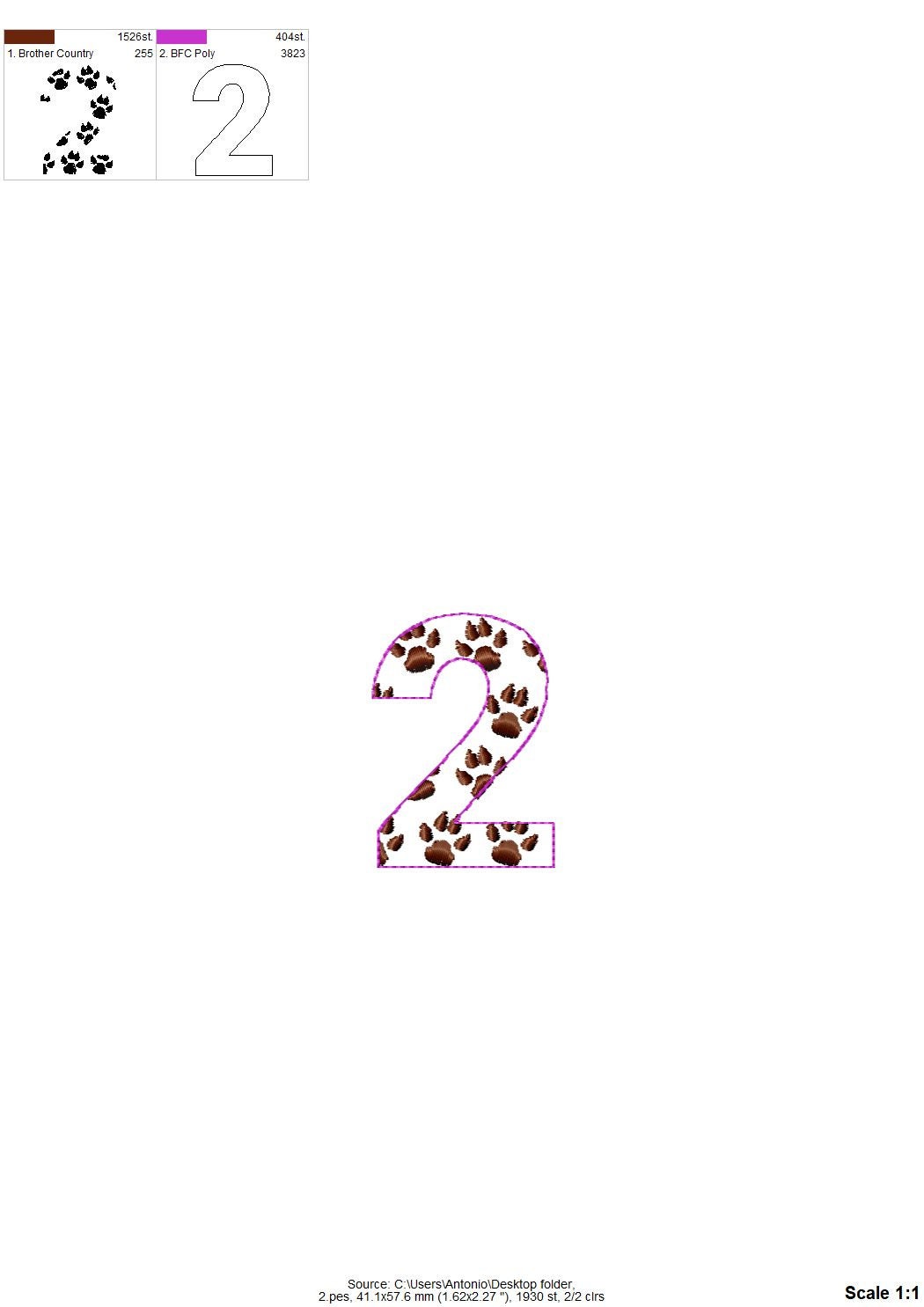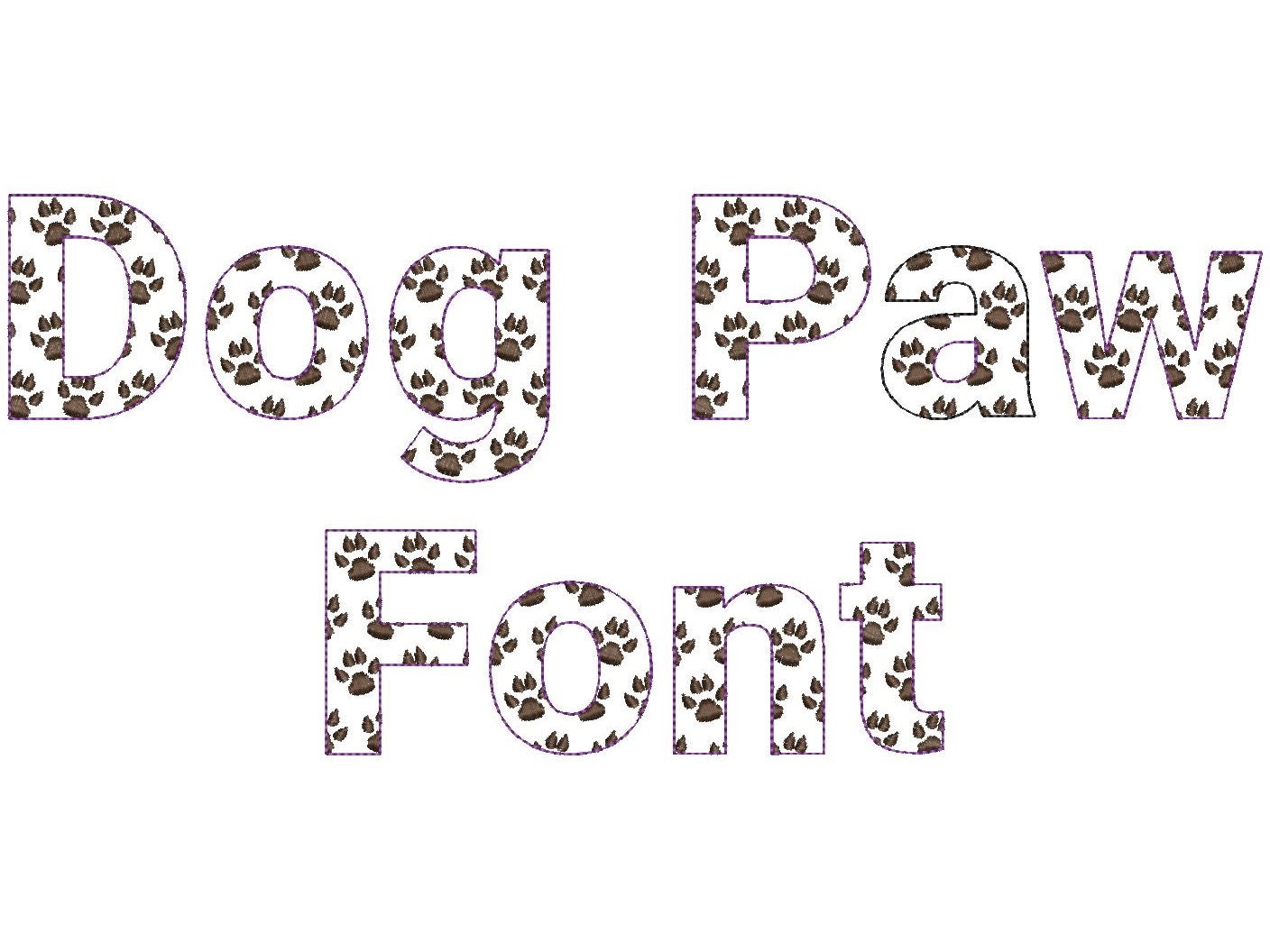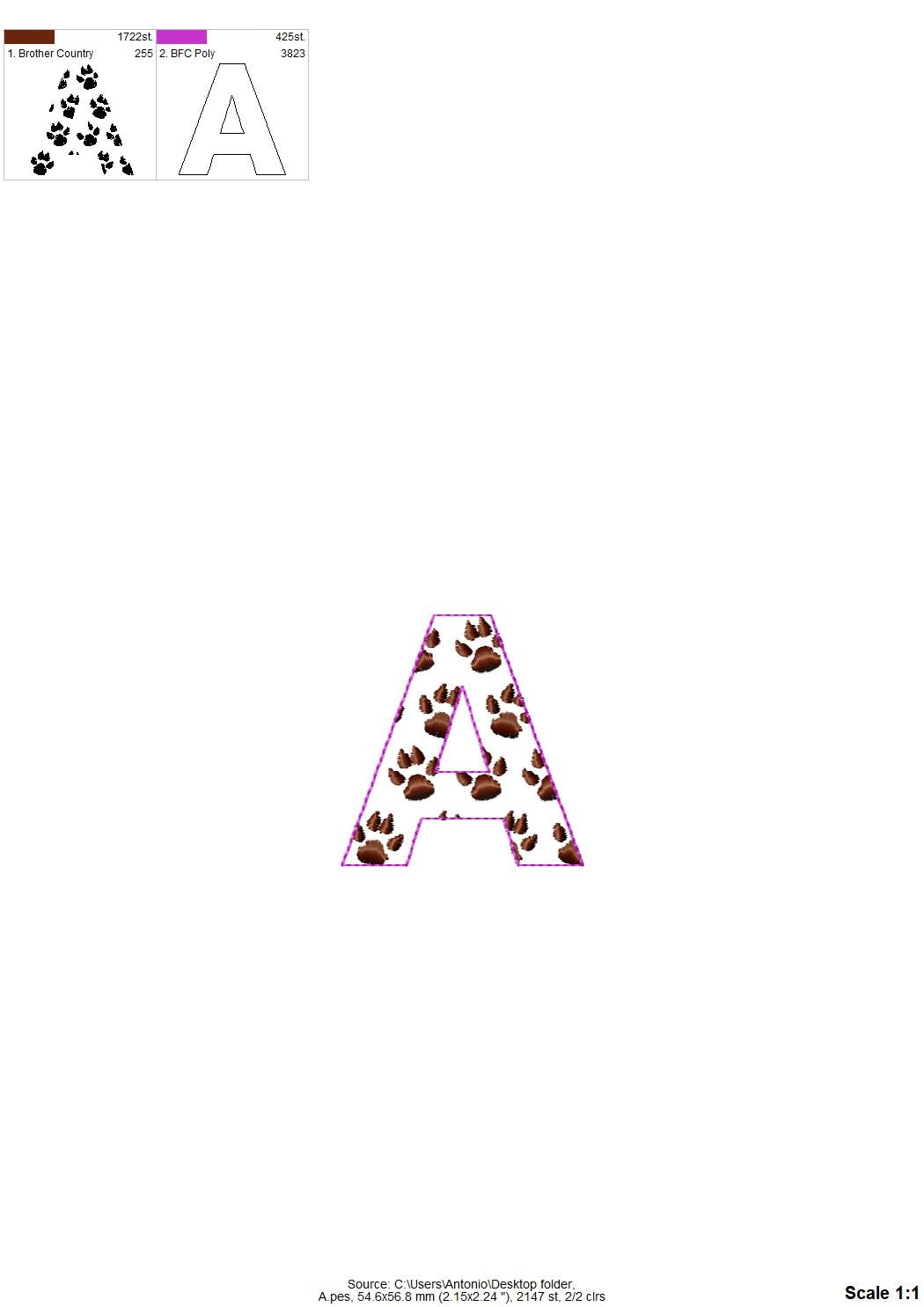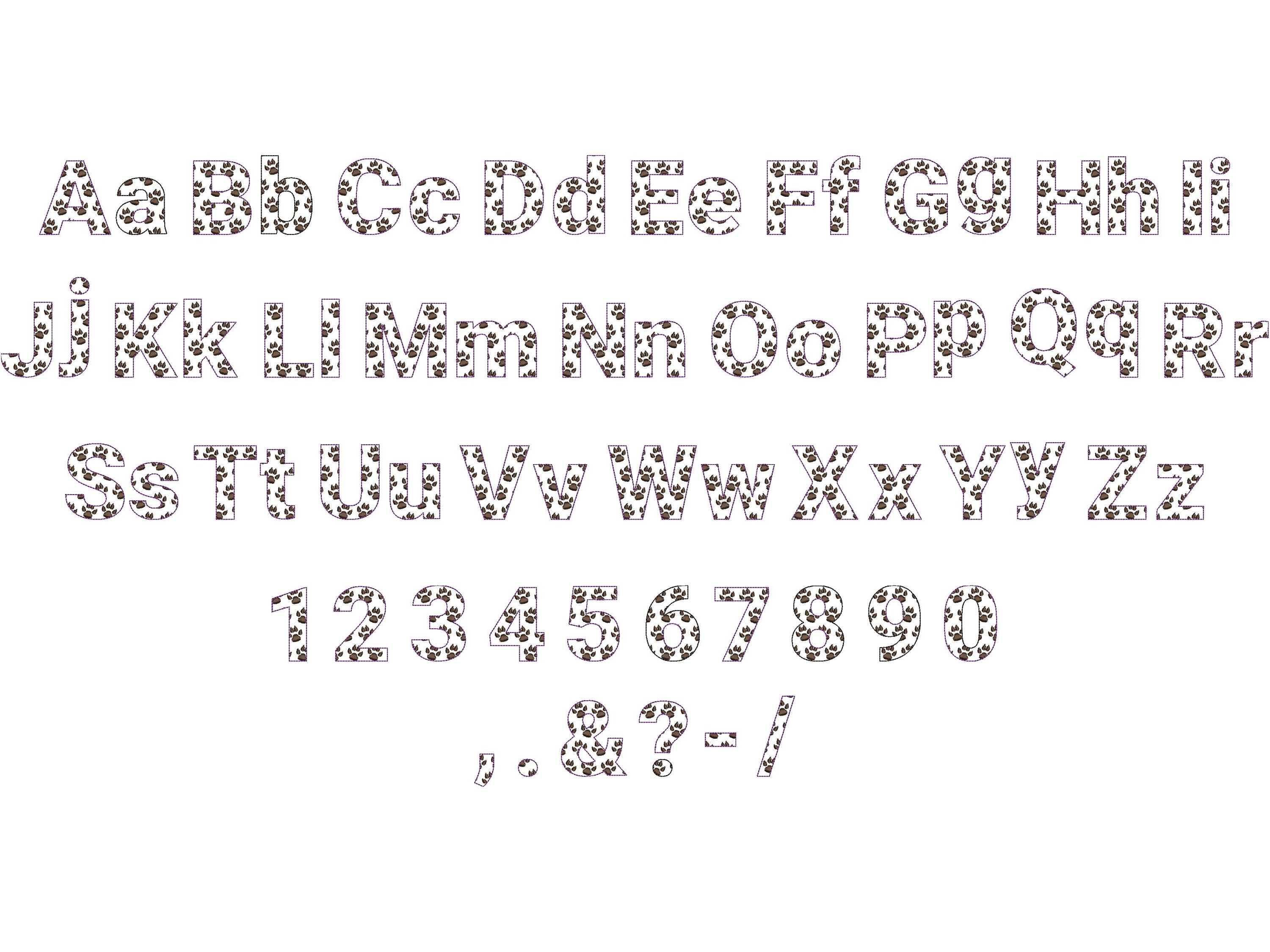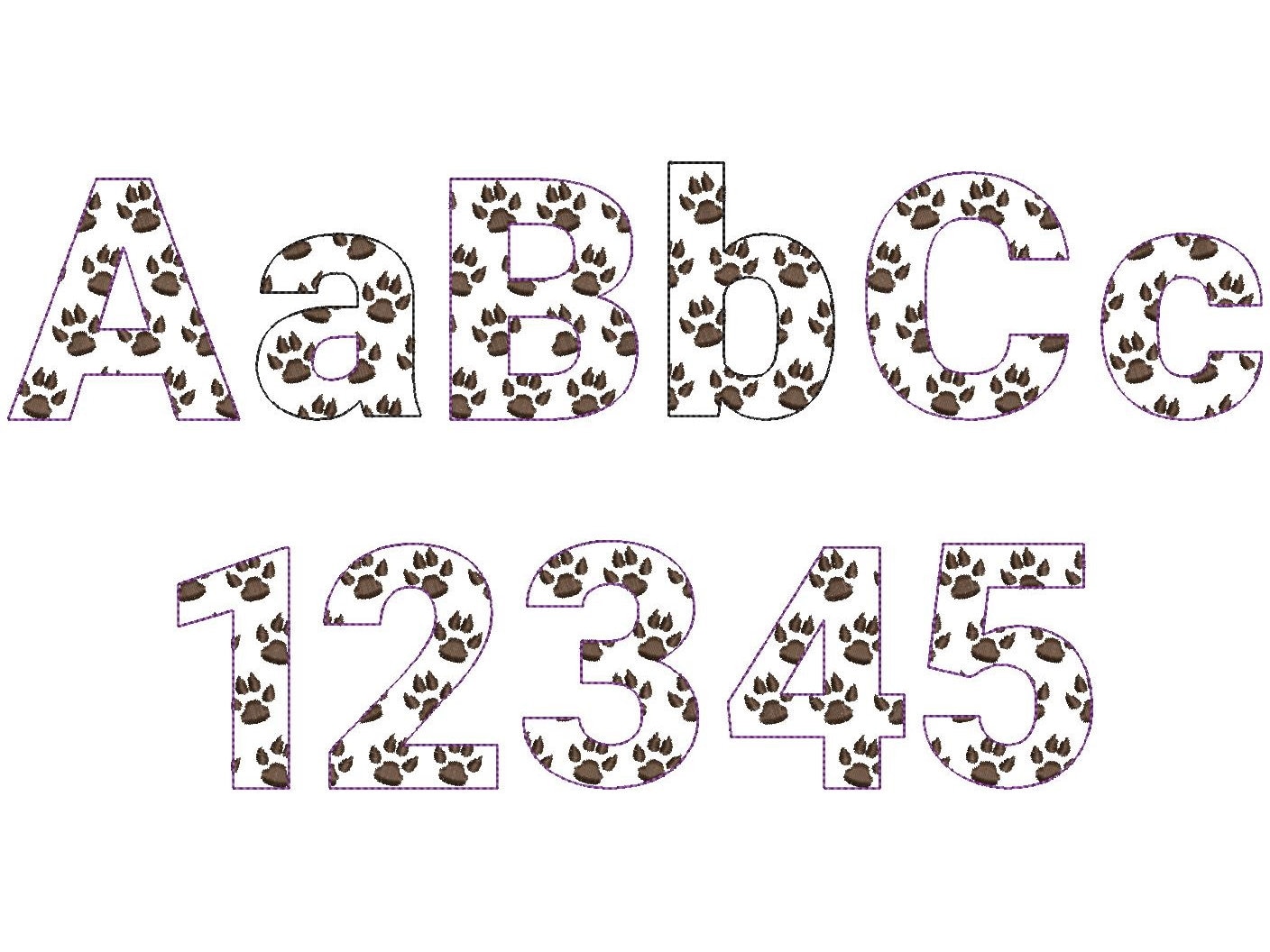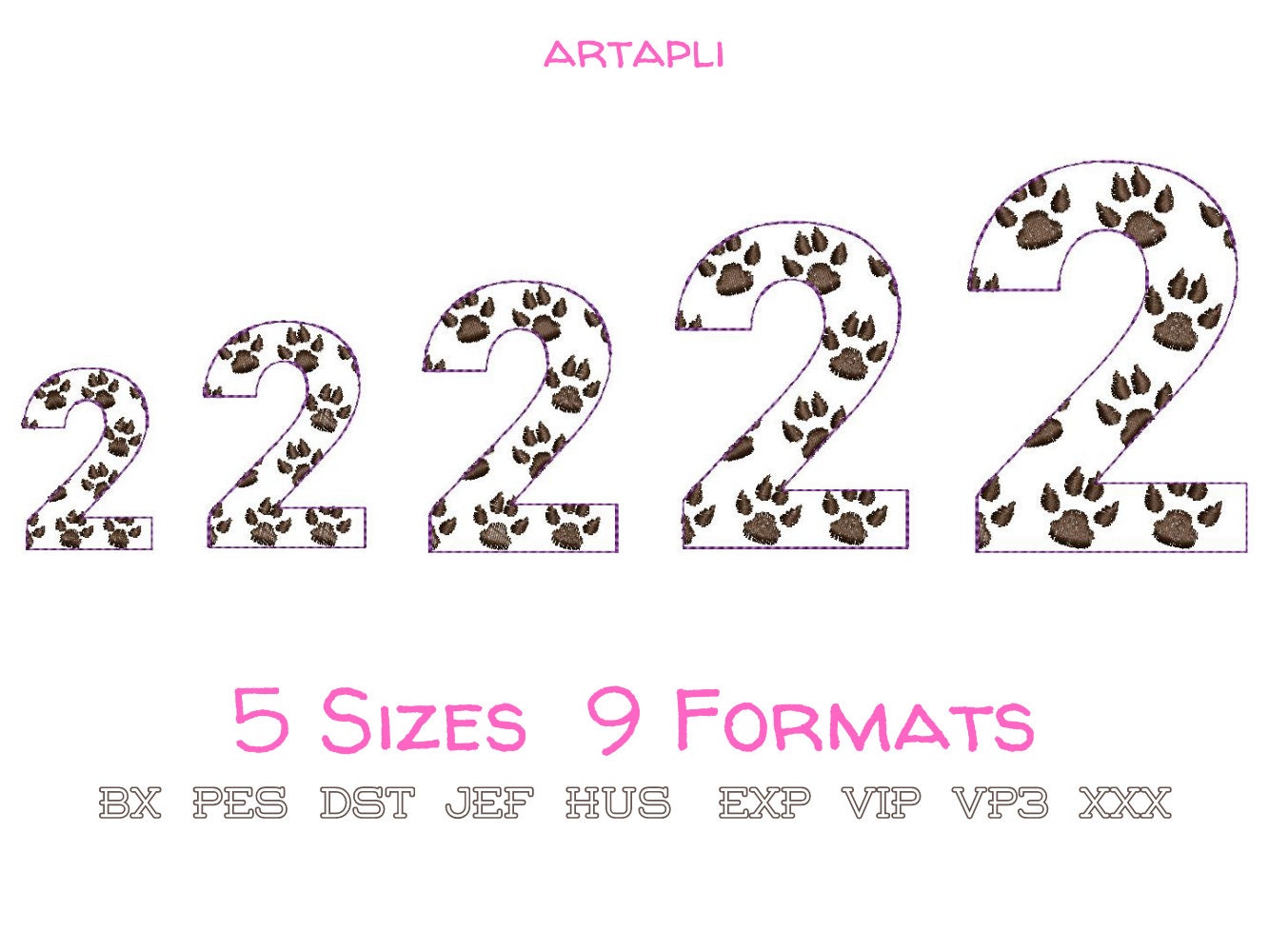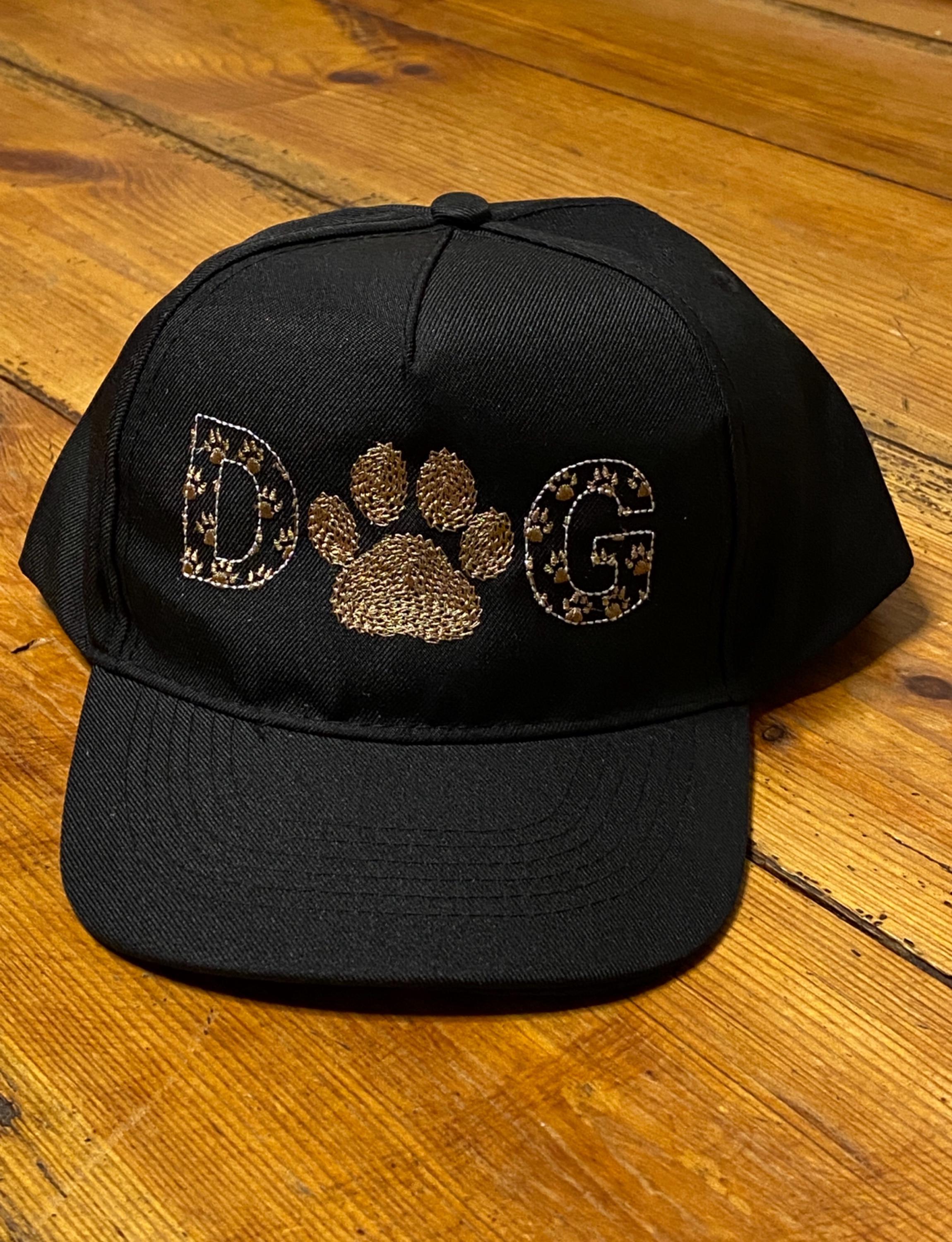
Dog Paw FONT pet puppy paw alphabet letters funny kids name monogram machine embroidery designs and raggedy applique designs, BX included
Uppercase and lowercase letters, numbers and punctuation.
These are quick stitch designs, that look like laces, the background fabric looks through. Stunning effect!
Dog paws are part of the embroidery (fill stitch).
May also be used as raggedy edge applique. Just stitch and trim excess fabric.